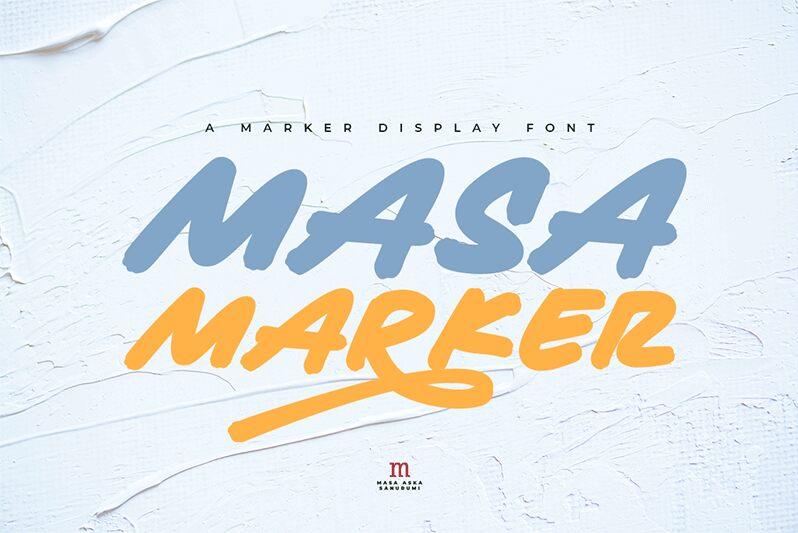
Masa Marker is a captivating handwritten font crafted by Masa Aska Sanurumi. This dynamic and expressive typeface exudes a distinct personality, with its organic strokes and striking brush-like textures. The irregular, handcrafted forms lend a raw, authentic quality, making it an ideal choice for projects seeking a genuine, handmade aesthetic.
Masa Marker's versatility shines through its ability to seamlessly transition between bold, impactful headings and more delicate, expressive body text. Its unique character captures a sense of spontaneity and individuality, making it a compelling option for branding, editorial design, and even packaging applications.
The font's versatility allows it to elevate a wide range of creative endeavors, from modern, minimalist designs to more playful, artisanal compositions.